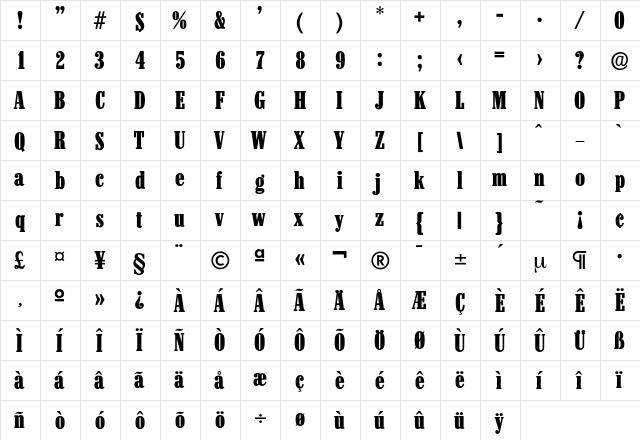
Colonel-Heavy Regular
Design Context for Colonel-Heavy Typeface
Colonel-Heavy is a composed and adaptable typeface that performs quietly and consistently across a wide range of design contexts.